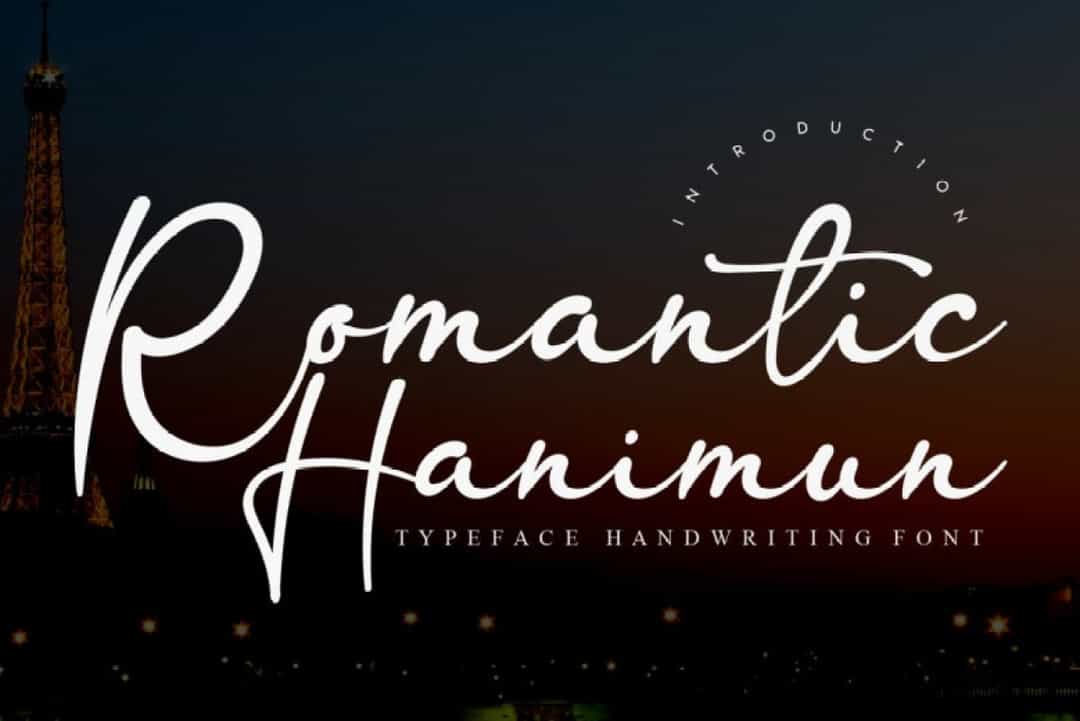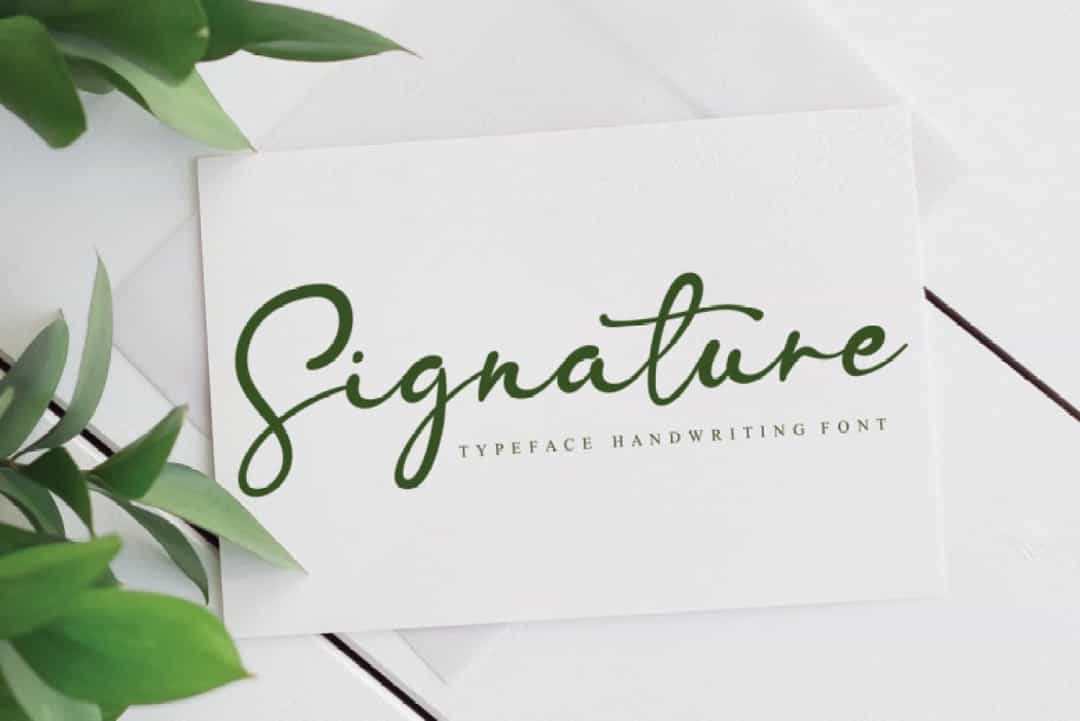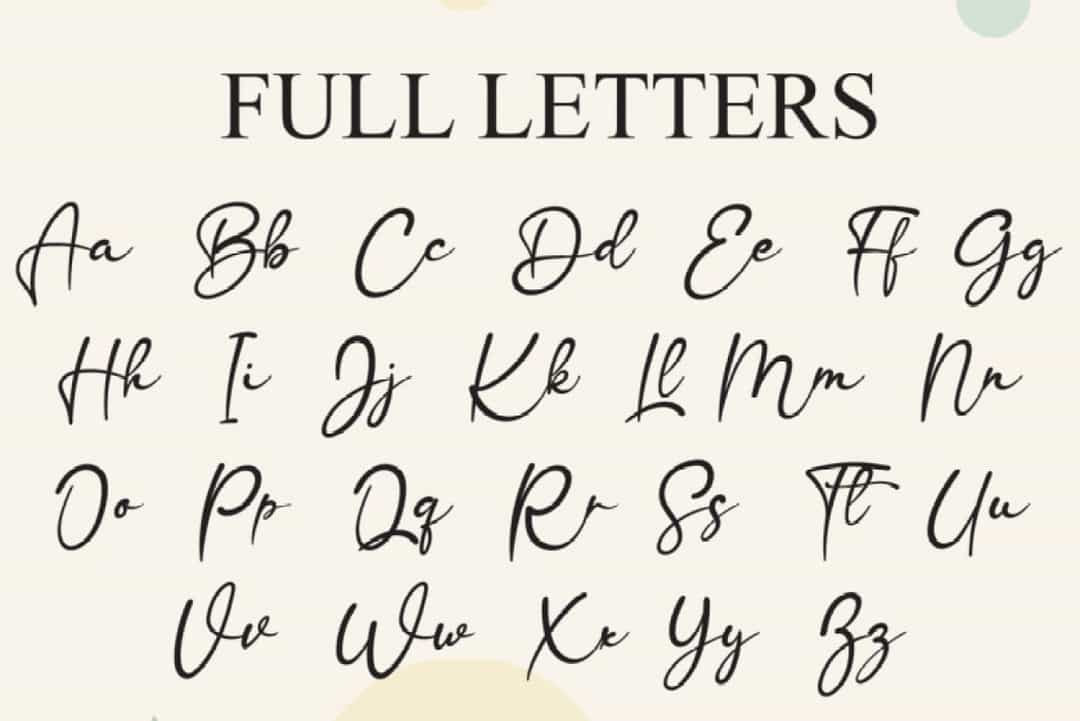
Romantic Hanimun is a high quality and simple handwritten font that will best fit for logos, branding related projects, wedding projects, advertisements, social media posts, product packaging, T-shirt labels, product photos’ watermarking, invitations, stationery designs, etc.